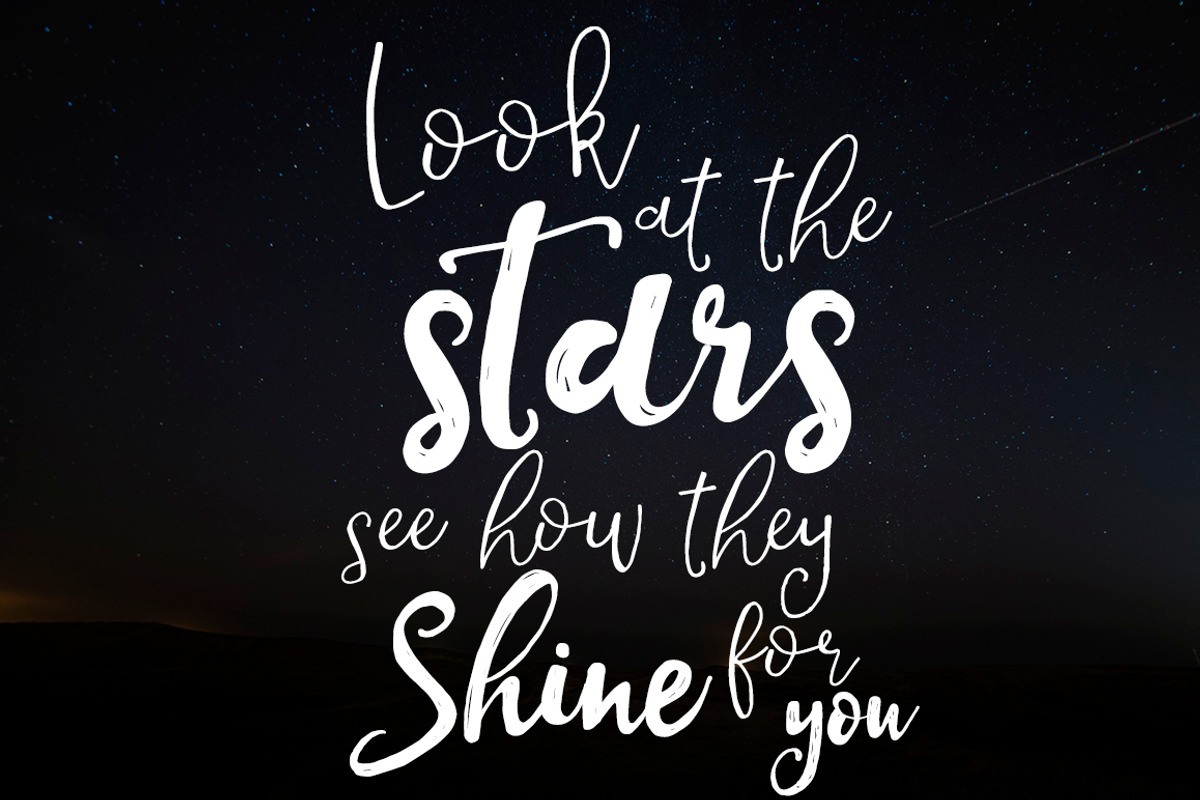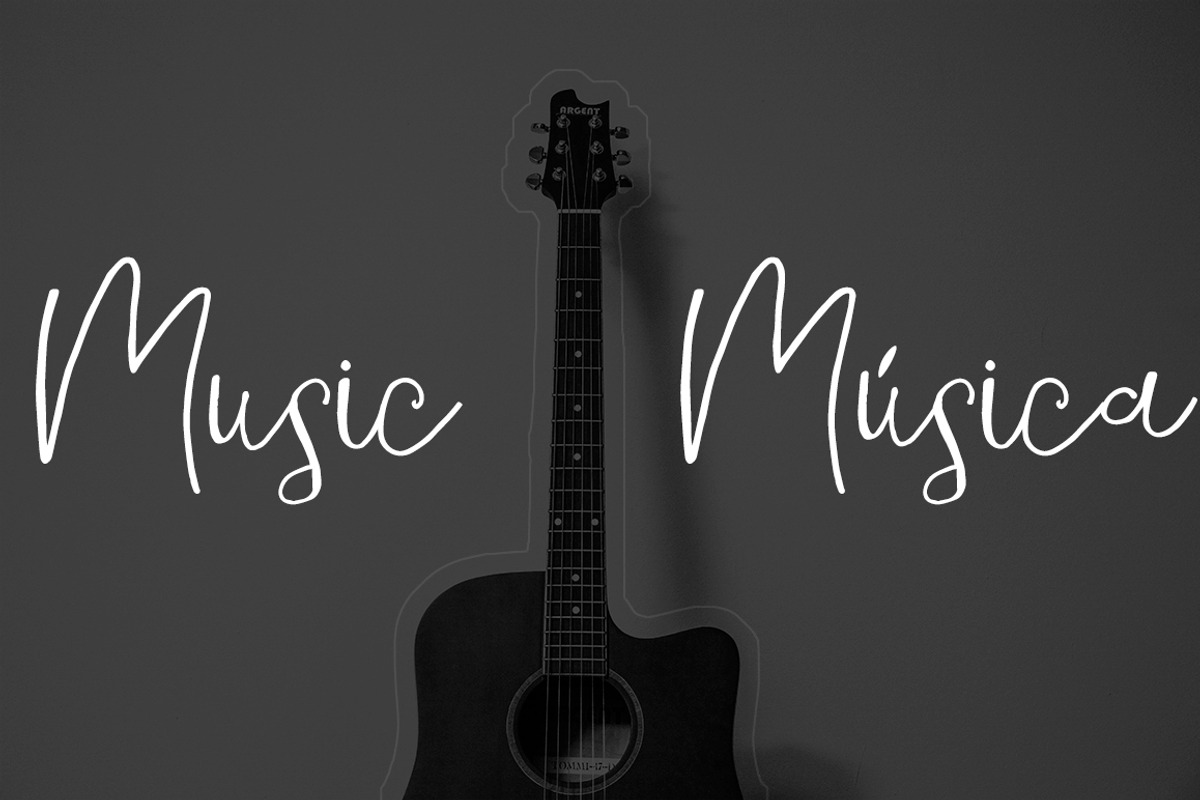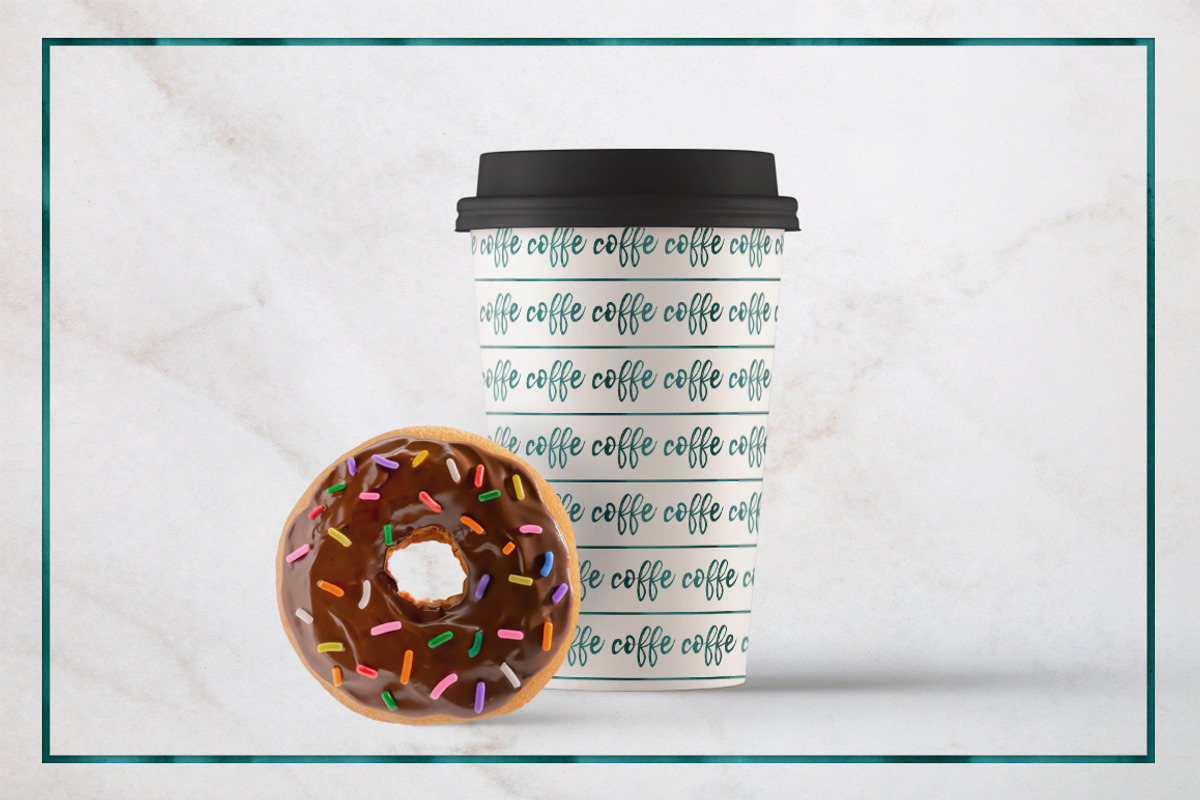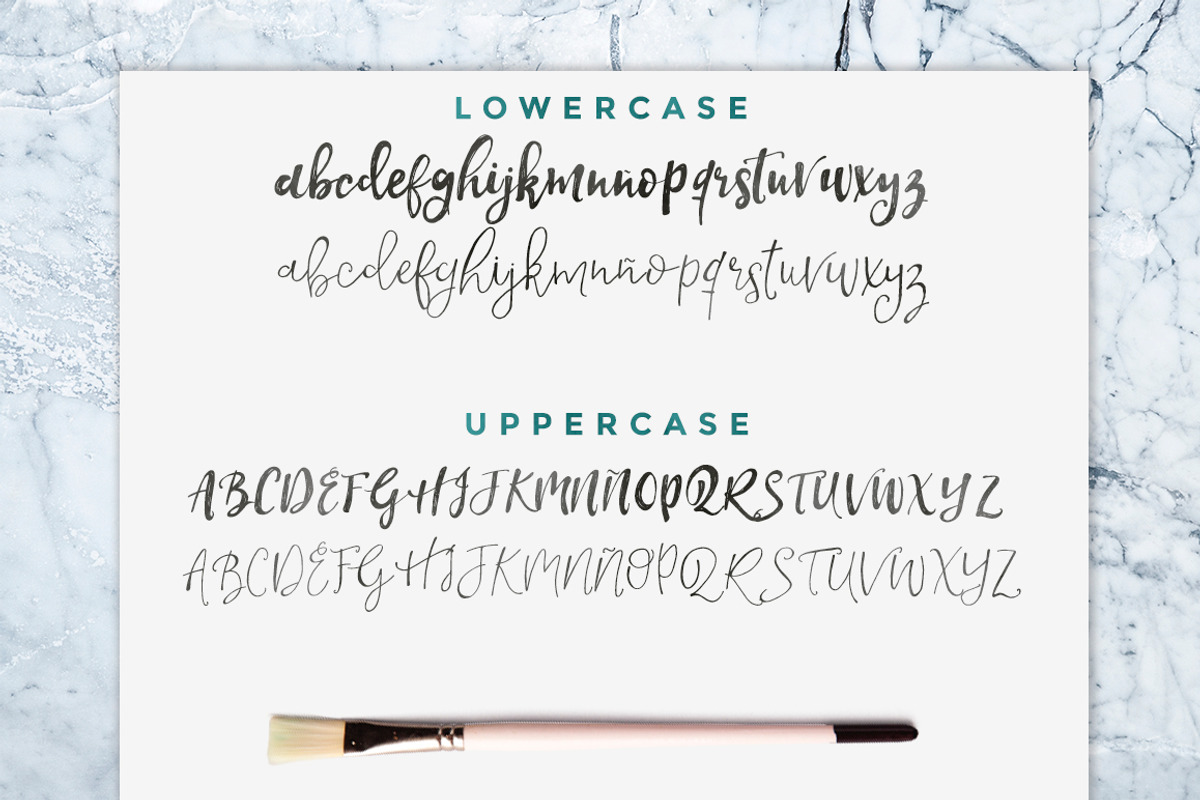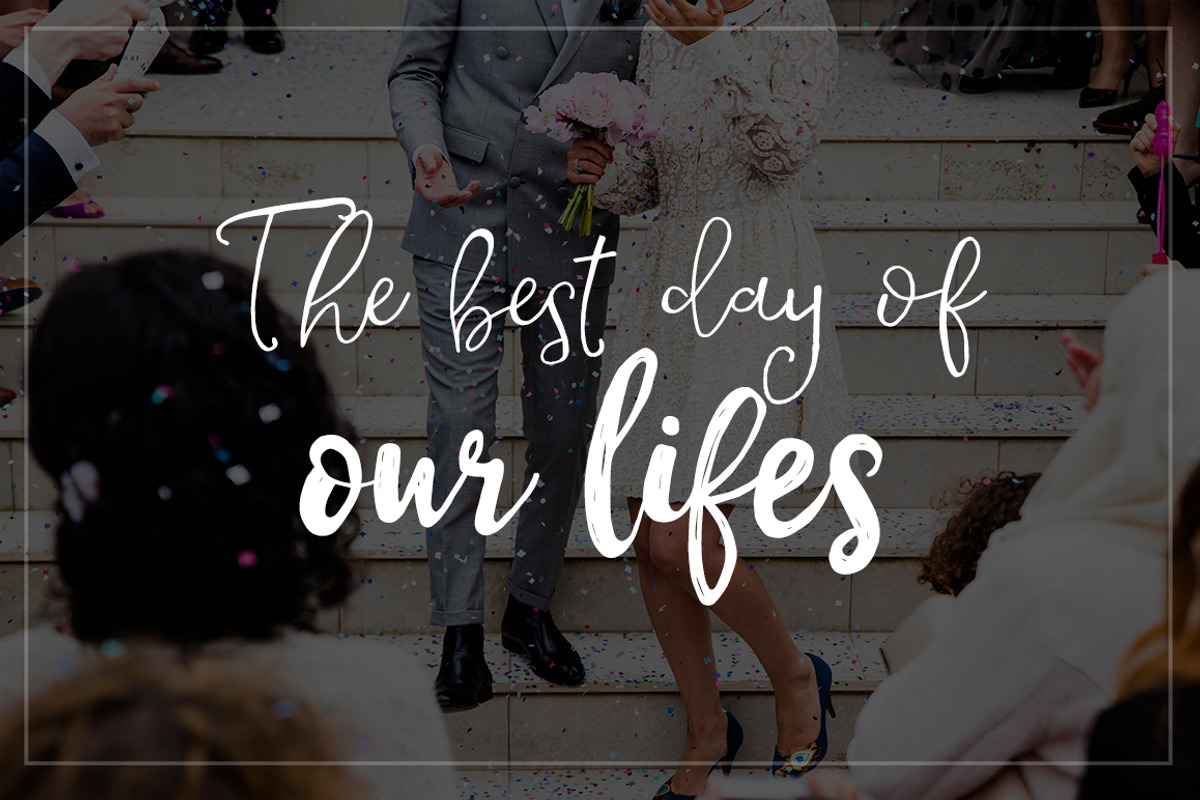
Esmeralda - handmade font duo!
Esmeralda - handmade font duo! by Andrea De Oliveira is a font selected for branding, posters, packaging, typography.
- Handmade Thin Regular
- Cursivehandmade Regular
Why Esmeralda - handmade font duo! is worth a look
Esmeralda - handmade font duo! by Andrea De Oliveira fits naturally into Branding, posters, packaging, typography.